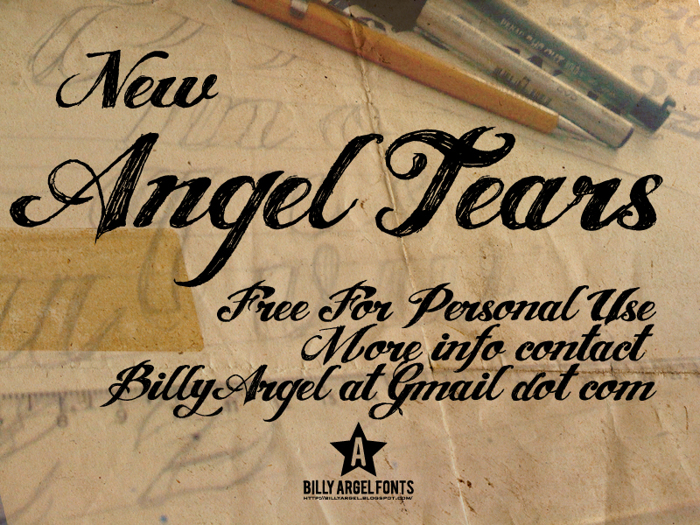
ANGEL TEARS Font
nice & scetchy.. I like it.
Caps - B looks really nice!
okay seriously leaving commentz for a font that funny!!!! lol im bored
sweeeet! anything named "Angel" is good with me,
it's great font. I like it. I use everyday 😄
I love this font. I use it all the time. It is very sketchy and the capital letters are my favourite. I love looking at all your fonts! This one would have to be one of my stand out favourites! B M N R S T are all really good letters. PLEASE MAKLE MORE FONTS!!!!! ( AS GOOD AS THIS ONE!) [IF YOU CAN BEAT IT!]
LOVE this font! I have used it for SO MUCH! 😄
Lyk dis Font use it alot 😄
This is absolutely AWESOME!!! I used this for the word 'Anniversary' in an anniversary card and it turned out great!!!
Rubbish! Punctuation is either missing or appears as the creator's logo. I was unable to use it for what I wanted for this reason. A fix to this would be appreciated by all.
is very beautiful font,you make it very nice.Thank you
@Owenjenko Same here this font is just plain old stupid. Nothing to obsess over. its quite inferior to the other fonts and that is an understatement itself. Let me try again. THIS FONT IS MORE ATROCIOUS THAN MY GARBAGE
This font is gorgeous!
I was amazed with this font style. I used it every time I have projects in the office. Thanks. 😄
es un clasico, gracias!!
its called ANGEL TEARS, but its kinda gothic! I like it! its cool